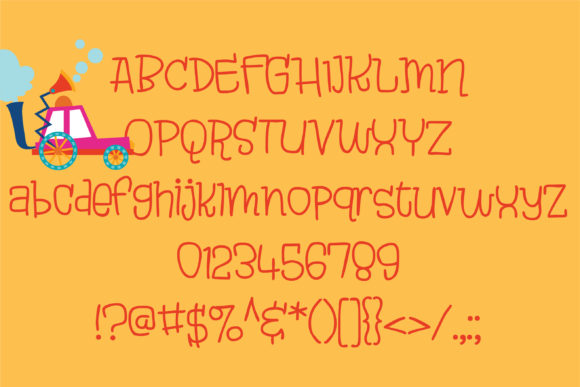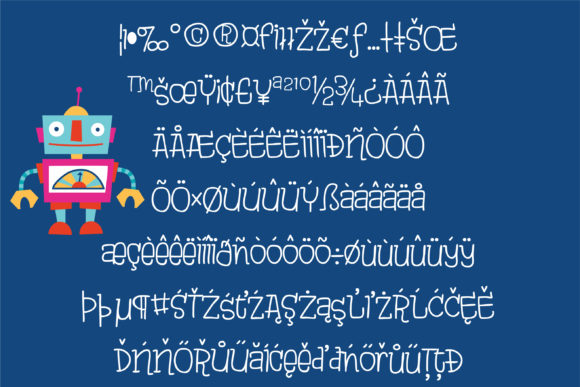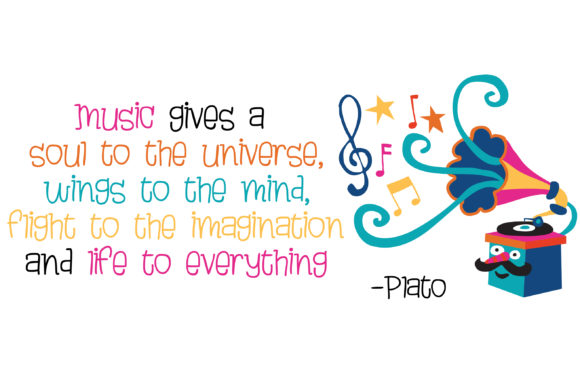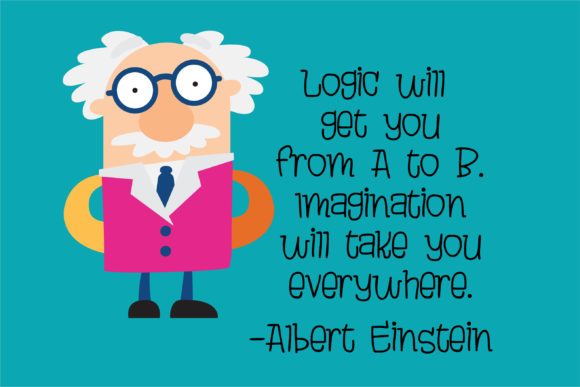
HomeScript FontsThingamajig Font Script Fonts Thingamajig Font FacebookXPinterestWhatsApp Thingamajig Font Poster 2 Thingamajig Font Poster 3 Thingamajig Font Poster 4 Thingamajig Font Poster 5 About Thingamajig Font This fun and whimsical font is a hand-crafted sans serif font that has a youthful appeal to it. DOWNLOAD ON CREATIVE FABRICAThis font is sold and delivered by Creative Fabrica. Font Canyon may earn a commission if you buy through this link. People also explored Villette Font Skinny Minnie Vilonna Bold Font Rafiquell Font Sophia Font Mommy Font Vintage Font Anatonym Font Mountain Font 338 0 TagsThingamajig Font Previous articleNifty Neato FontNext articleJack Sans Font LEAVE A REPLY Cancel reply Comment: Please enter your comment! Name:* Please enter your name here Email:* You have entered an incorrect email address! Please enter your email address here Website: Save my name, email, and website in this browser for the next time I comment. Personal Use Free Anggiana Personal Use Free Read more about this font Cinderella Personal Use Free Read more about this font Haris Wood Personal Use Free Read more about this font Vexler Slip Personal Use Free Read more about this font BLOG Best Fonts for T-Shirt Design – Top 2025 Picks In 2025, t-shirt design has become more than just fashion—it's a form of self-expression. Whether you're... Free vs Paid Fonts: Why Investing in Premium Fonts Is Worth It The 10 Best Handwriting Fonts to Add Personality to Your Designs Using Fonts in Digital Marketing: Tips to Strengthen Your Brand Identity